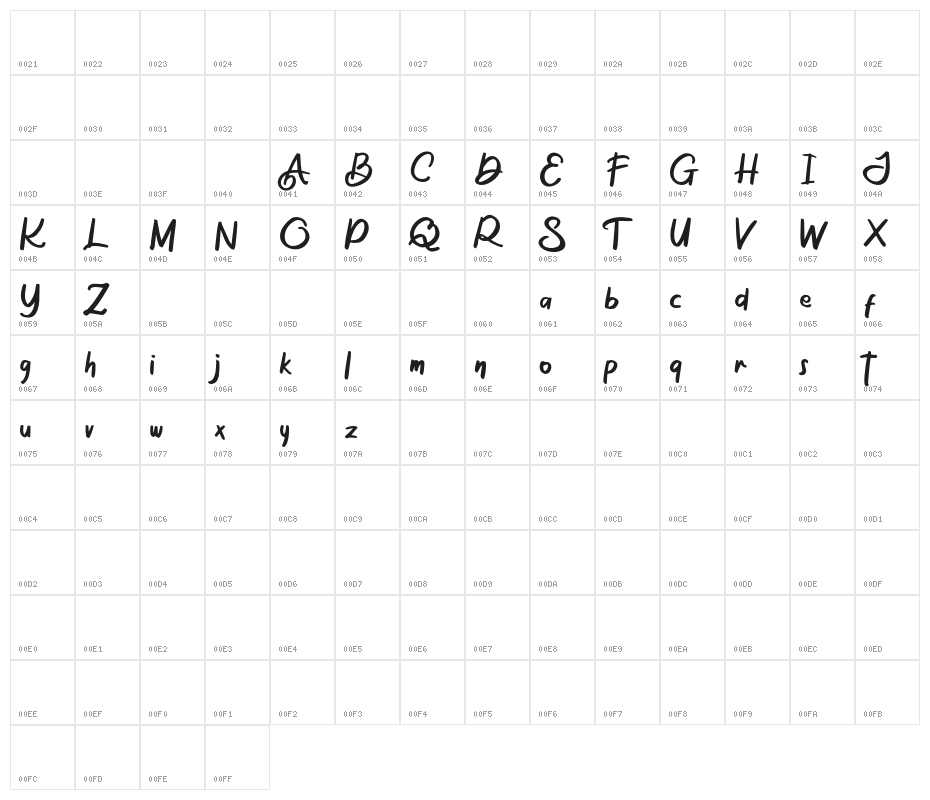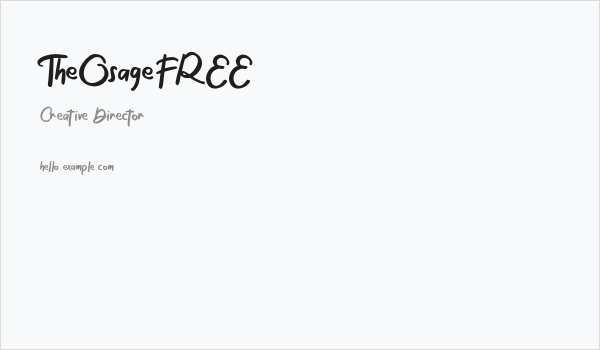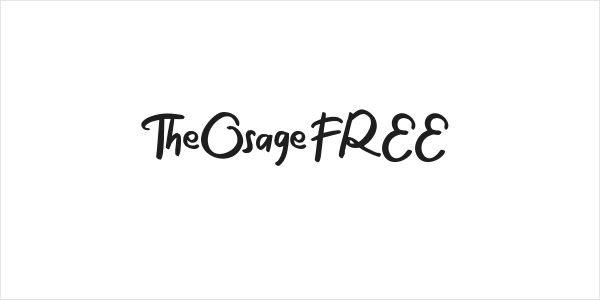
TheOsageFREE Font
TheOsageFREE Description
This font features a playful and dynamic script style, characterized by its fluid and flowing letterforms. The uppercase letters exhibit a whimsical flair with varying stroke widths, while the lowercase letters maintain a consistent yet lively appearance. The font's overall design is reminiscent of hand-drawn calligraphy, offering a sense of spontaneity and creativity. The characters are well-spaced, ensuring readability while maintaining an artistic touch. This font is ideal for projects that require a personal and informal feel, such as invitations, greeting cards, or creative branding.
| Proposed Projects | Ideal for invitations, greeting cards, creative branding, and artistic projects. |